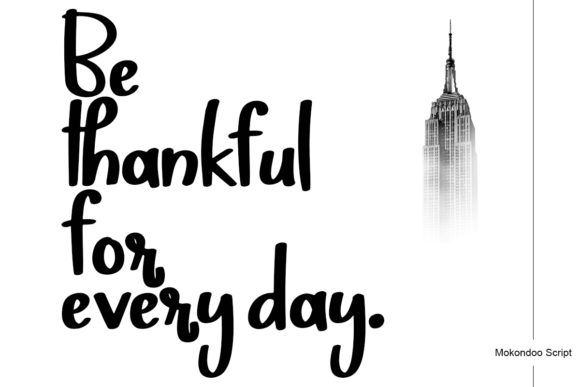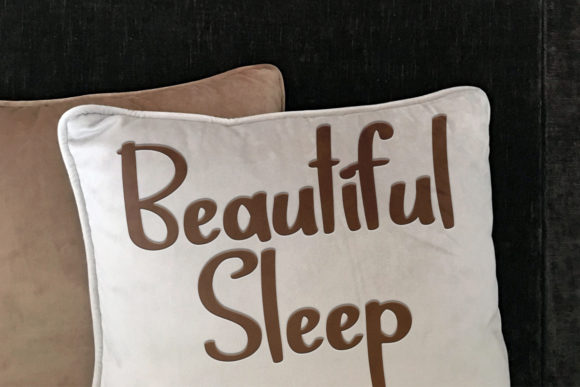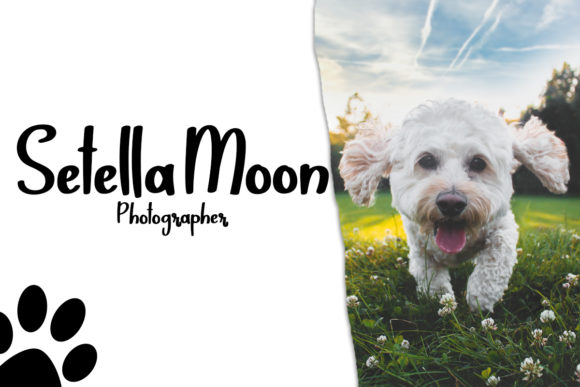
About Mokondoo Font
Mokondoo is a handwritten script font. It features a great style that can really enhance your projects. It’s perfect for branding projects, logos, wedding designs, social media posts, advertisements, product packaging, product design, labels, photography, watermarks, invitations, stationery, and more!